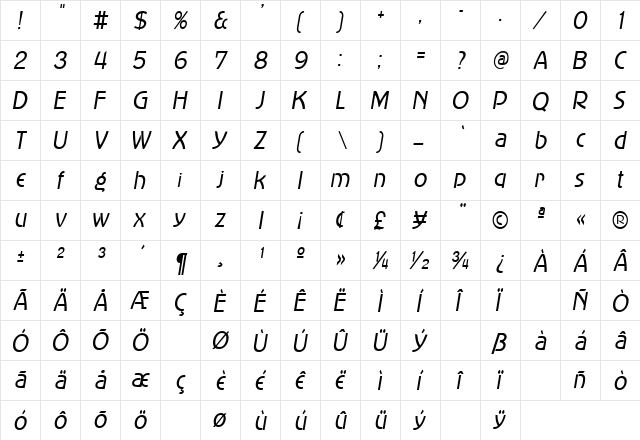
MadisonThin Oblique
Design Context for MadisonThin Typeface
MadisonThin is a composed and adaptable typeface that performs quietly and consistently across a wide range of design contexts. Its italic angle brings a sense of urgency and motion to the letterforms. The delicate stroke weight brings airiness and refinement to layouts.
Pro Tip: Try MadisonThin for annotation and caption copy alongside an upright companion — the contrast in angle creates a dynamic but ordered typographic system.